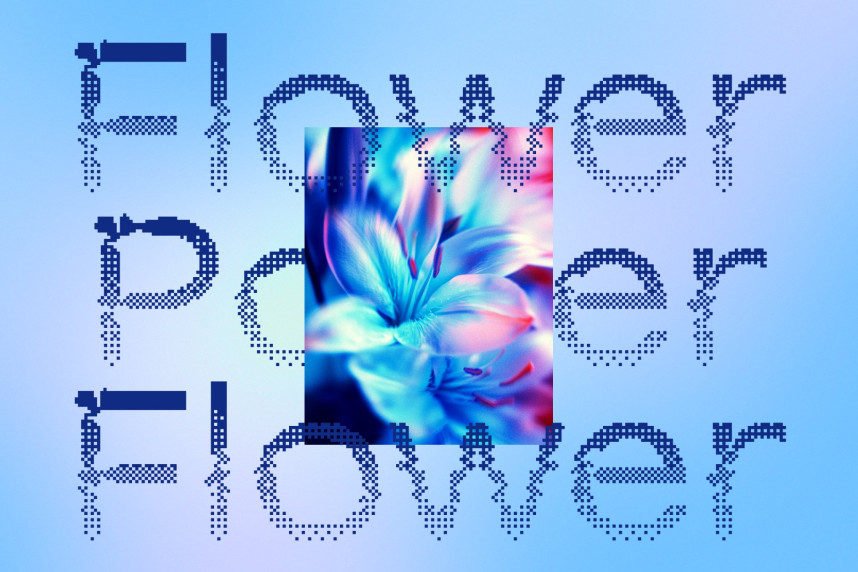
CS Pacify Halfpixel Font
CS Pacify Halfpixel Font – Psychedelic Sans Serif Display Font: Where Funky Retro Energy Meets Smooth Pixel Style
Playful Fluid Forms with Creative Expression
This is a captivating sans serif display font that brings the psychedelic spirit of the past into the modern age. Its playful, irregular, and fluid letterforms create a lively visual identity filled with creativity, optimism, and expressive energy. Every character flows with unique curves and cheerful personality, making the font perfect for projects that embrace individuality and artistic freedom.